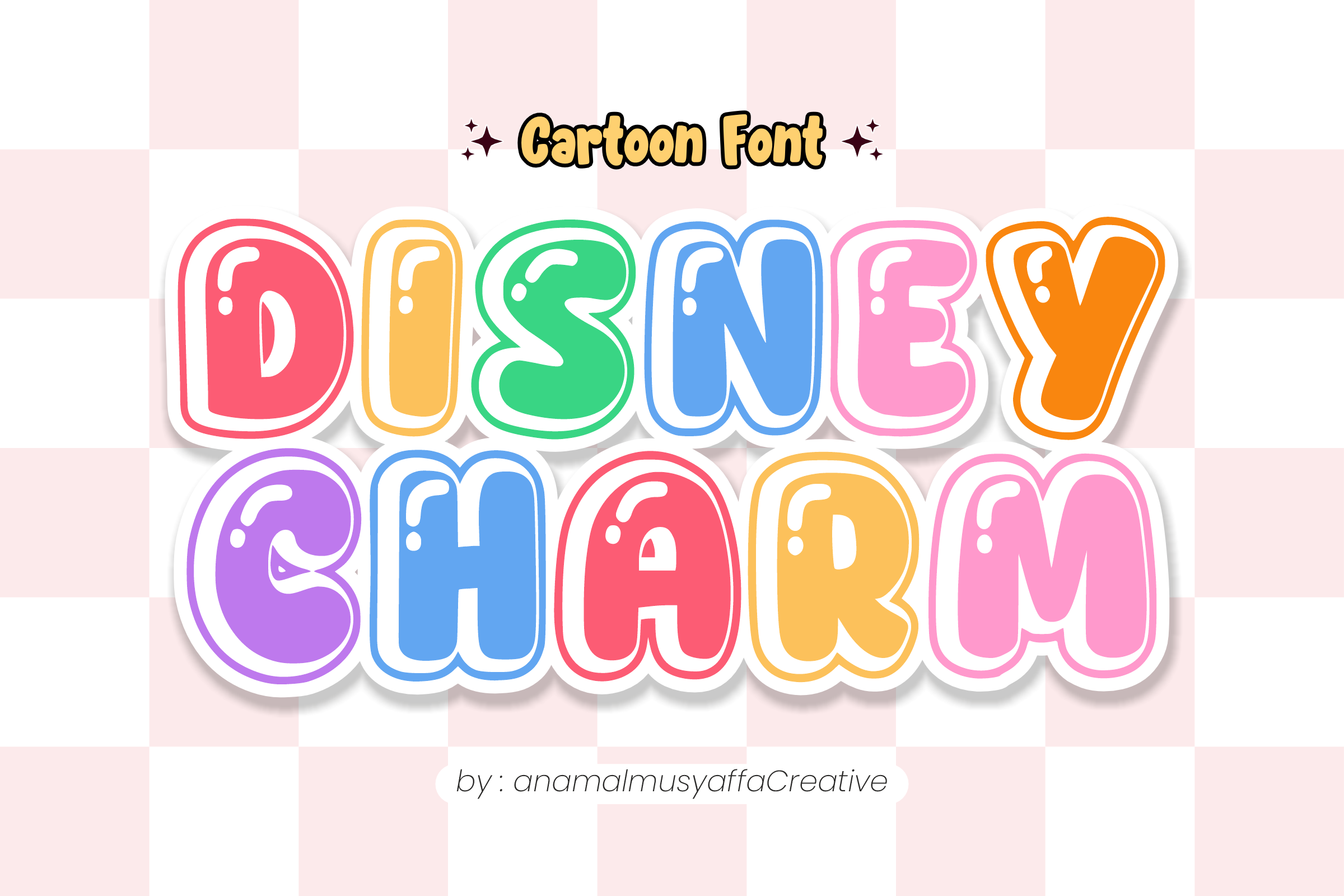
Disney Charm - Display Font
🏰 Disney Charm - Magical & Enchanting Display Font ✨ Experience the magic of storytelling with Disney Charm! This whimsical display font features bold, chunky characters with a playful "sticker-style" outline and a sprinkle of magical dots. Designed to capture a sense of wonder and nostalgia, its bouncy rhythm and friendly curves make every word feel like a fairy tale come true.
Whether you are creating for a theme park adventure or a cozy nursery, Disney Charm adds a touch of "happily ever after" to your creative projects!
🌟 Key Features: 🪄 Magical Uppercase: Bold, rounded letters with a delightful sparkling texture.
🔢 Numbers 0-9: Matching enchanted numerals for dates, ages, and countdowns.
🎈 Simple Symbols: Essential punctuation to complete your magical messages.
✂️ Sticker Ready: Smooth, high-quality outlines perfect for vinyl cutting and DIY crafts.
🎨 Perfect For: 🏰 Theme Park Gear: Family vacation t-shirts, custom ears, and autograph books.
🧸 Kids Branding: Toy packaging, children's logos, and apparel.
🎂 Celebrations: Princess or hero-themed birthday invites and party banners.
🏫 Education: Magical classroom decor, library signs, and storytime posters.
📱 Social Media: Eye-catching YouTube thumbnails and whimsical Instagram quotes.